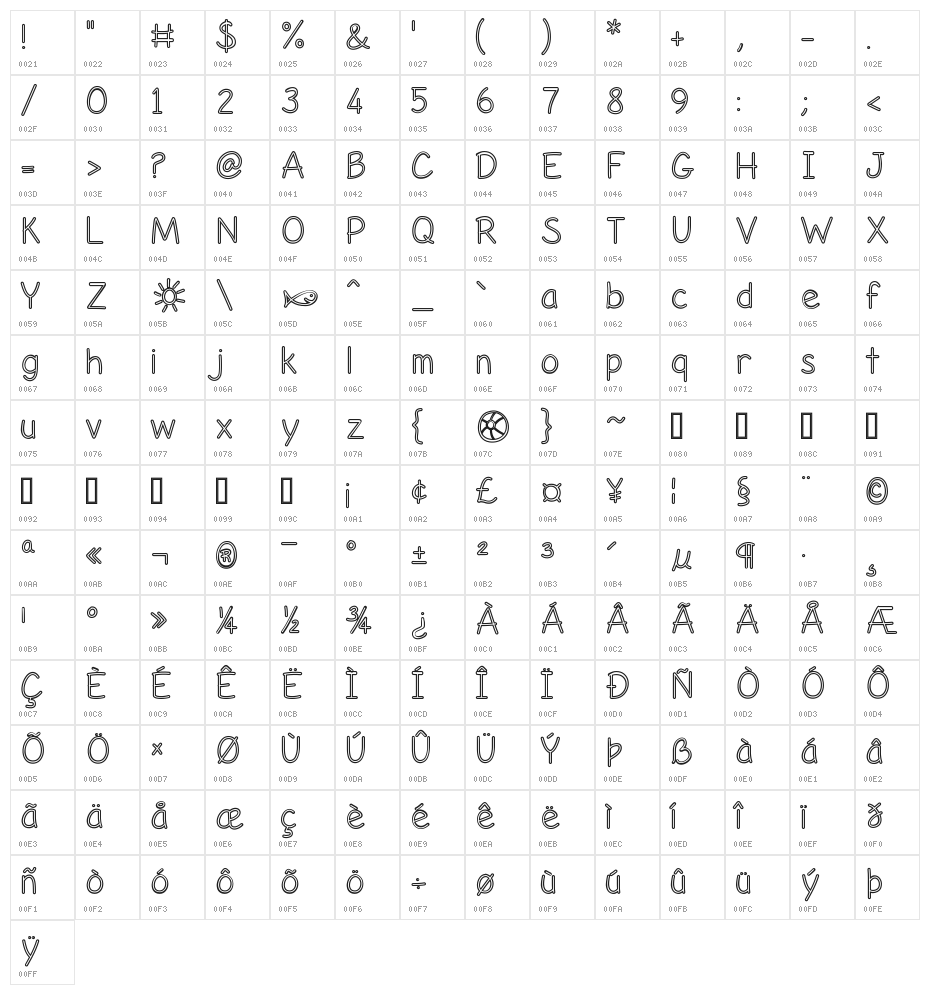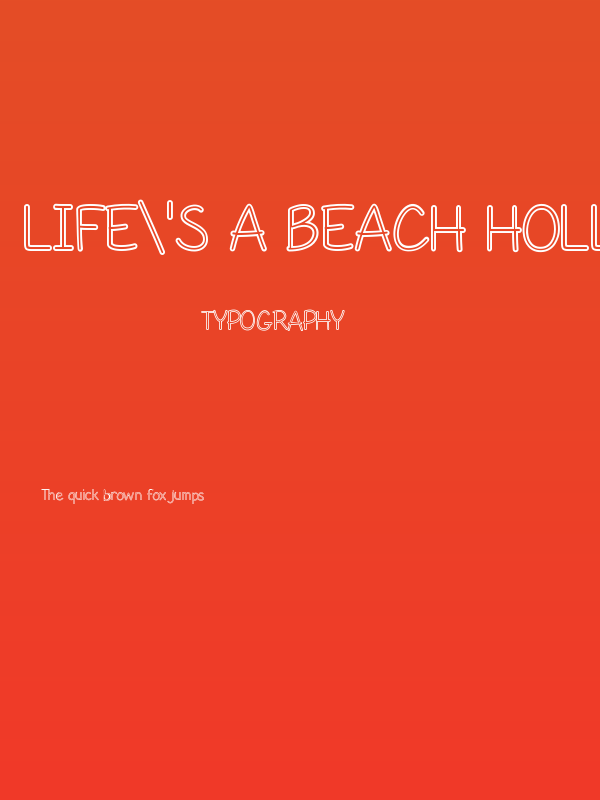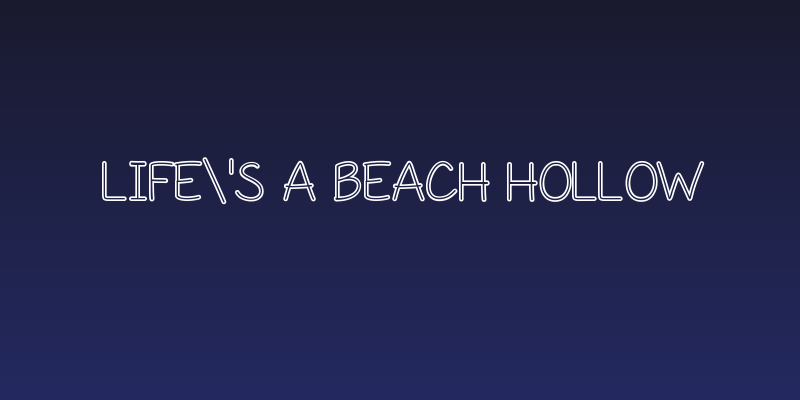
Life's A Beach Hollow Font
Life's A Beach Hollow Description
This playful and whimsical font features hollow, outlined characters that give it a light and airy feel. The letters are rounded and slightly irregular, adding a casual and friendly vibe. The uppercase and lowercase letters maintain a consistent style, with smooth curves and a uniform stroke width. The numbers and special characters are designed to match the overall aesthetic, making it versatile for various uses. Its unique style makes it stand out, perfect for projects that require a fun and approachable look.
| Proposed Projects | Ideal for children's books, playful branding, party invitations, and casual posters. |